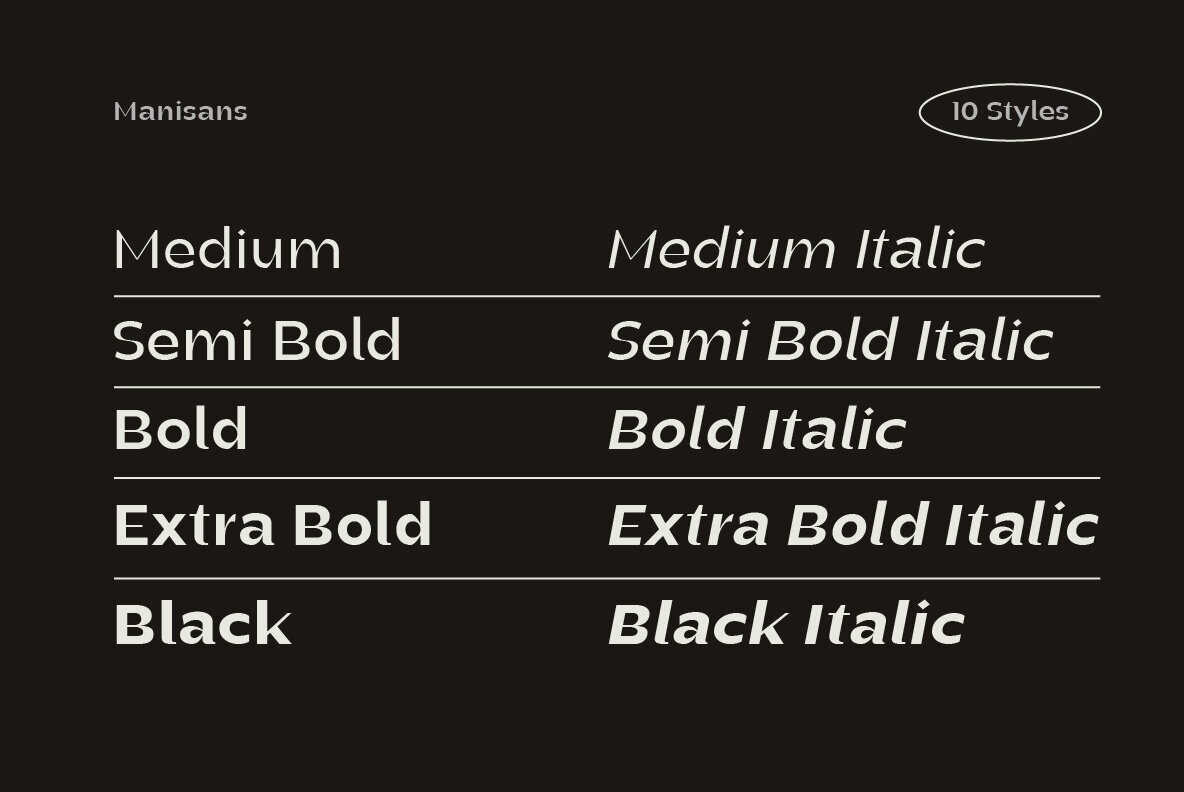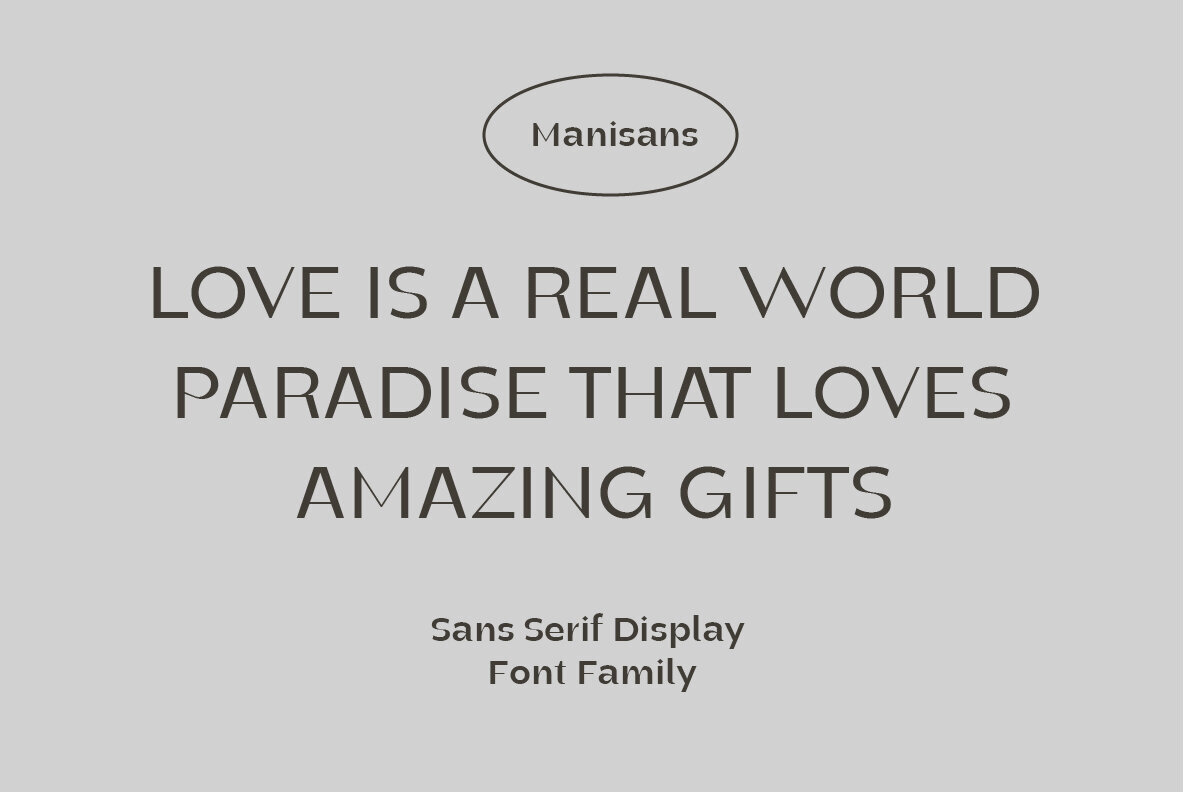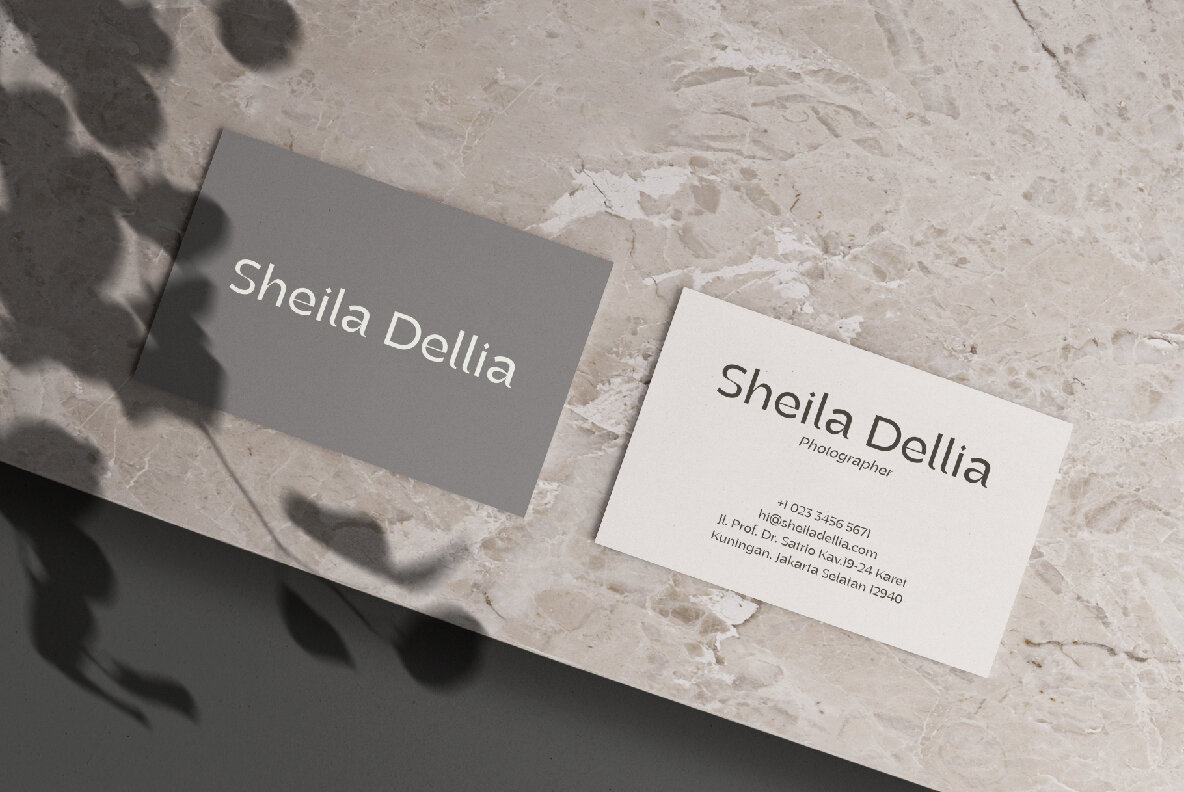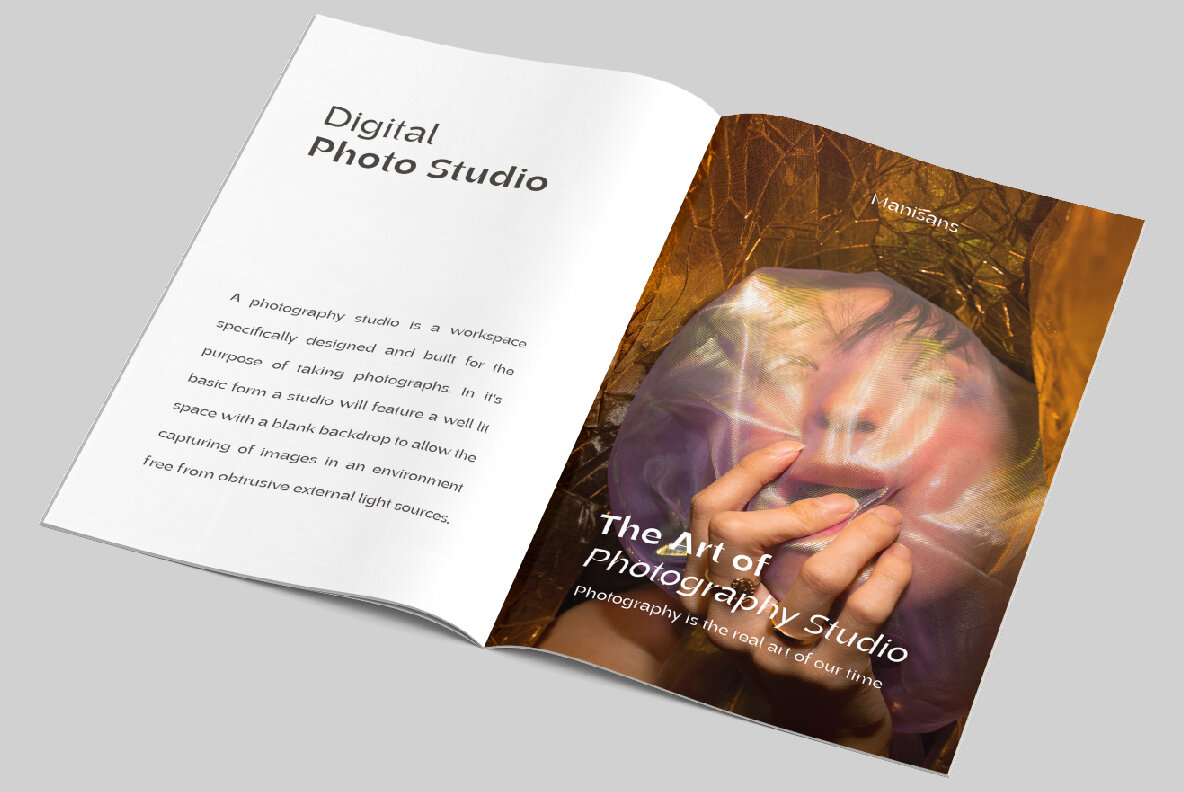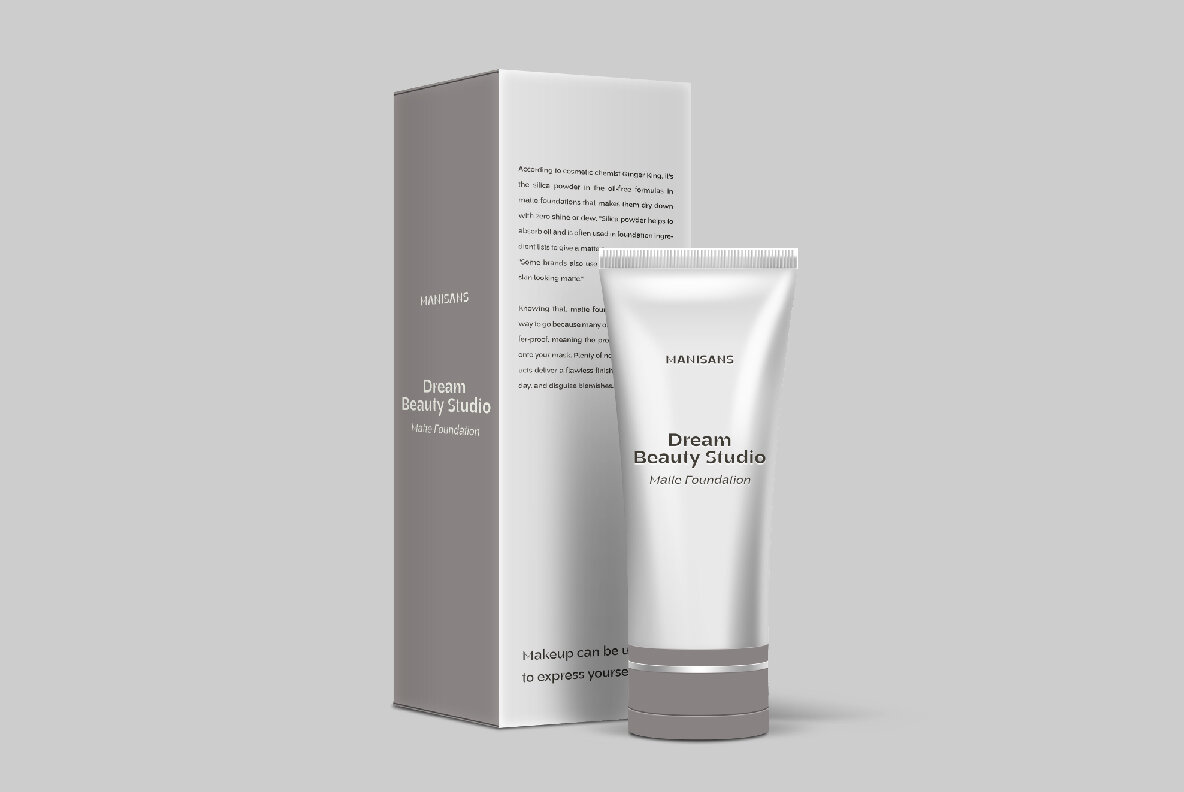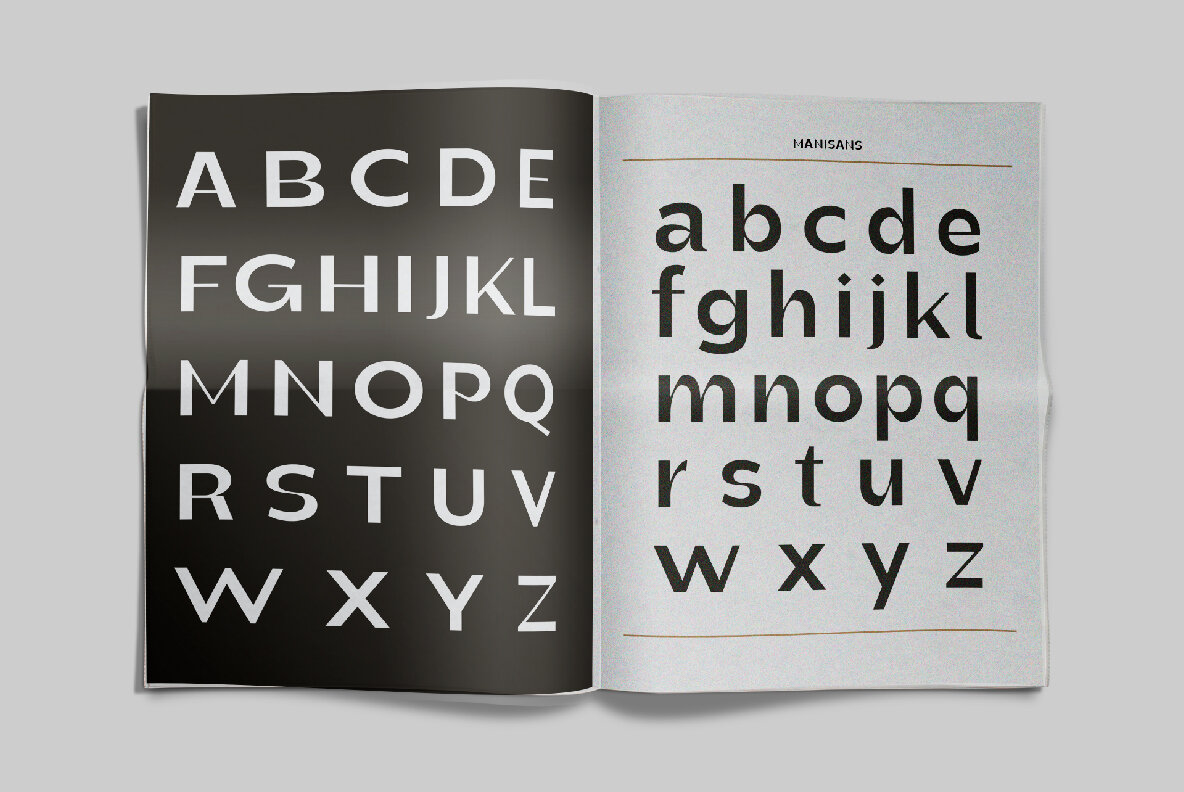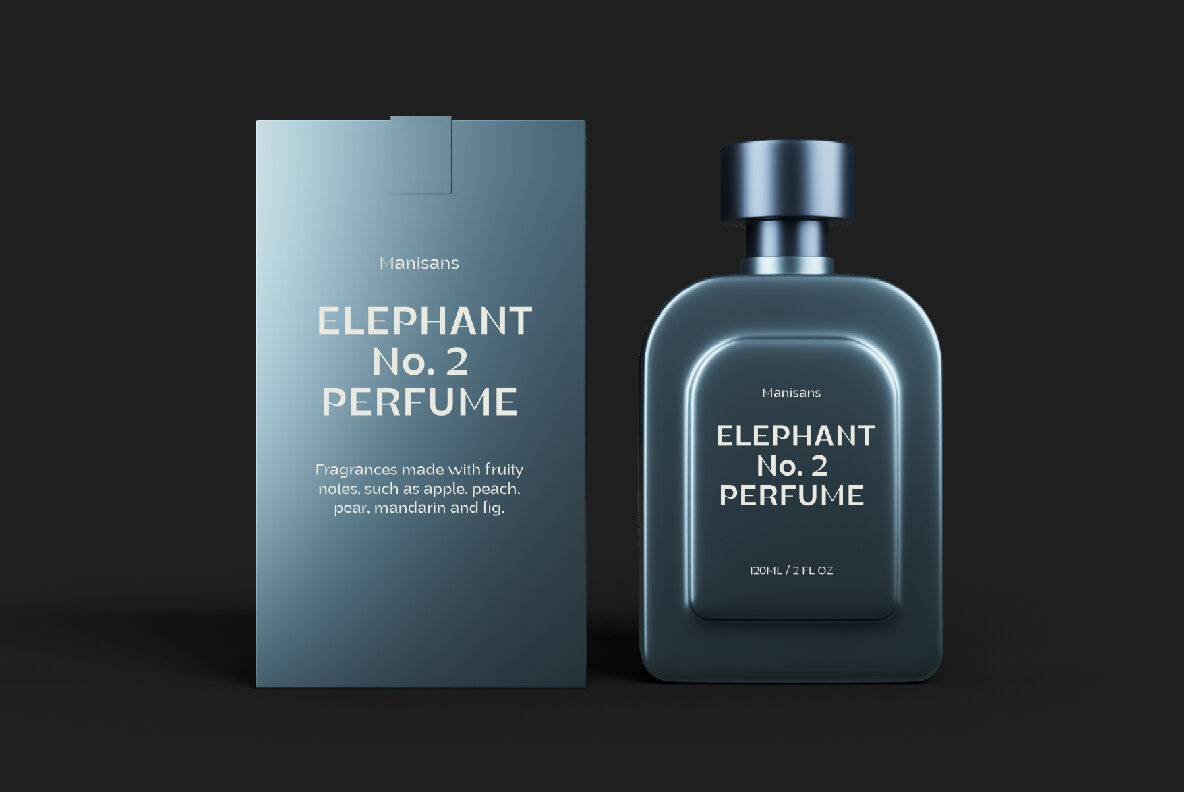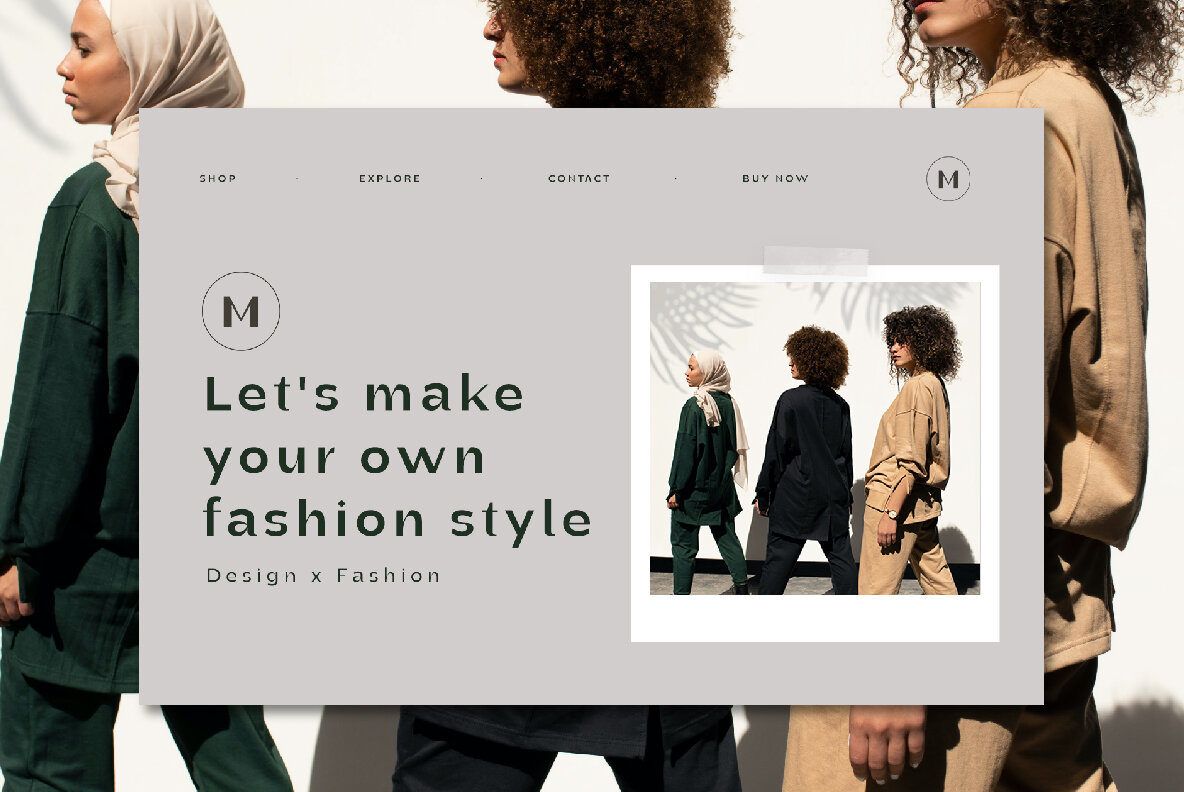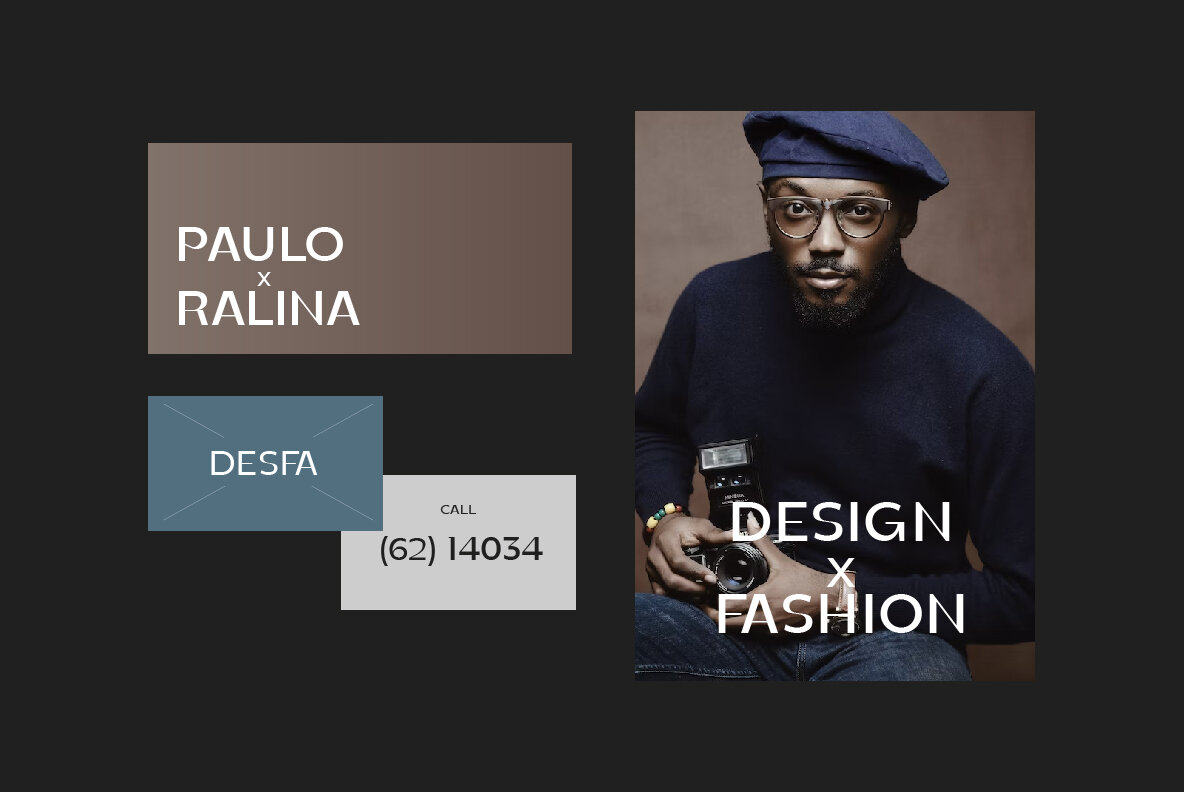
Manisans Font
Introducing Manisans, a sleek and modern font with an elegant typography style. With its bold and italic variations, this font offers flexibility for titles, headings, and poster designs. Designed for clarity and readability, it adds a touch of creativity to graphic design projects. Choose Manisans for an elegant and captivating visual experience.